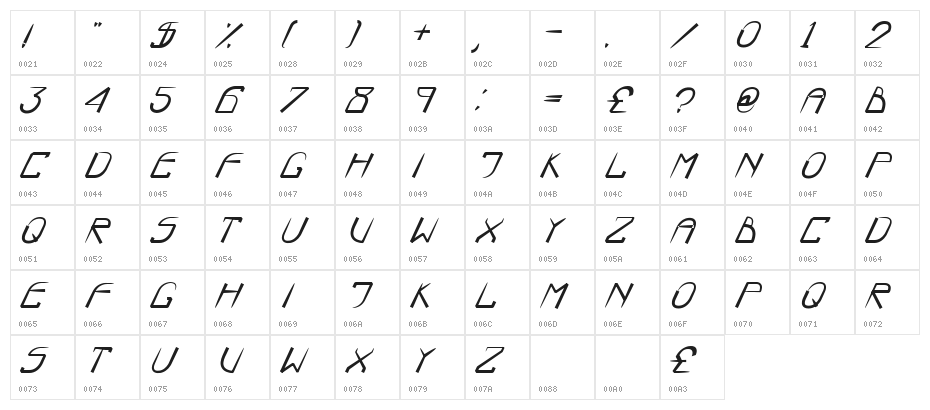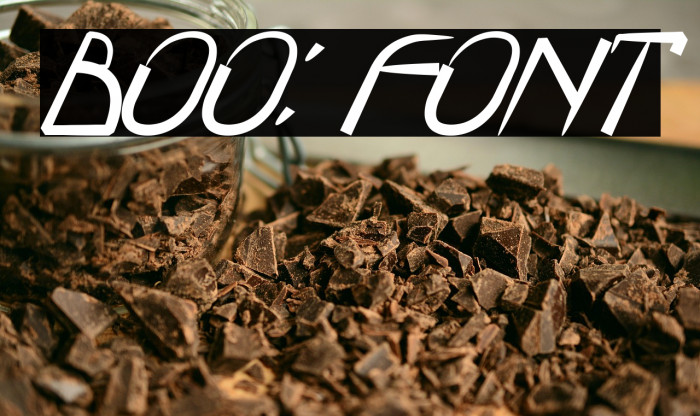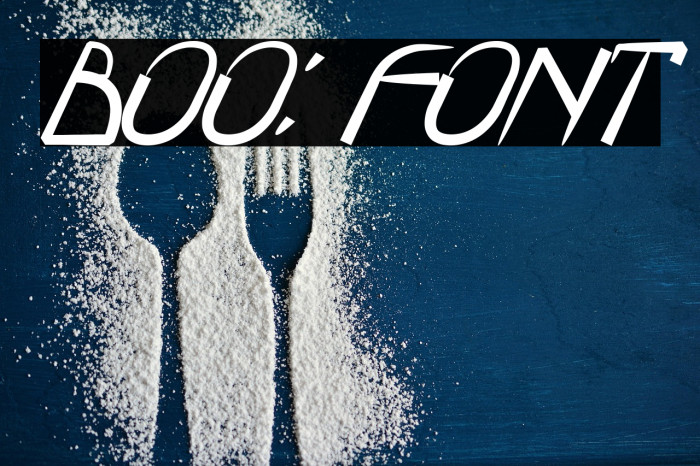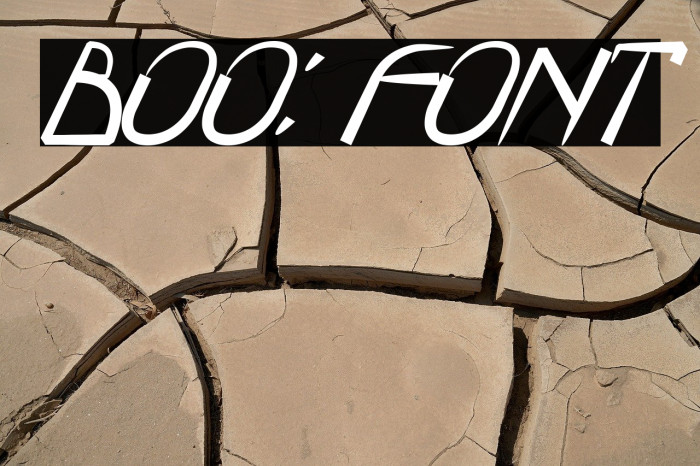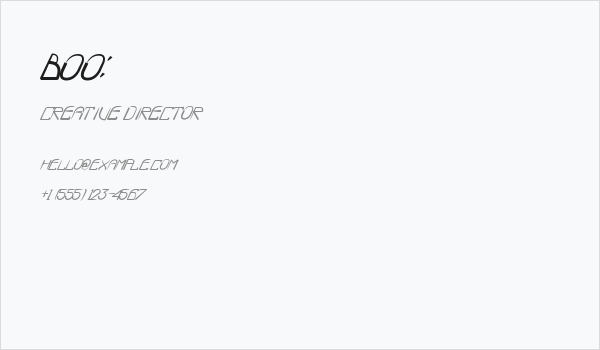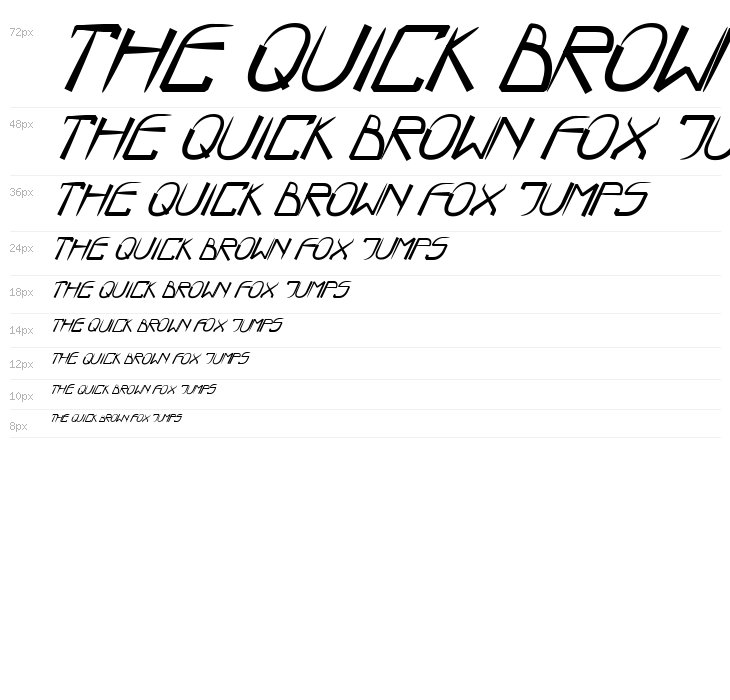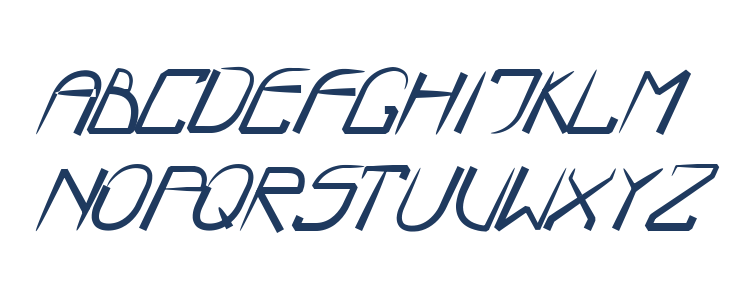
BOO:] Font
BOO:] Description
This font features a dynamic and angular design, characterized by its sharp edges and slanted orientation, giving it a sense of motion and modernity. The uppercase and lowercase letters are consistent in style, maintaining a cohesive look throughout. The numerals and special characters follow the same angular and italicized form, ensuring uniformity across all glyphs. The strokes are bold with a medium contrast, providing a strong visual impact. This font is suitable for projects that require a contemporary and energetic feel.